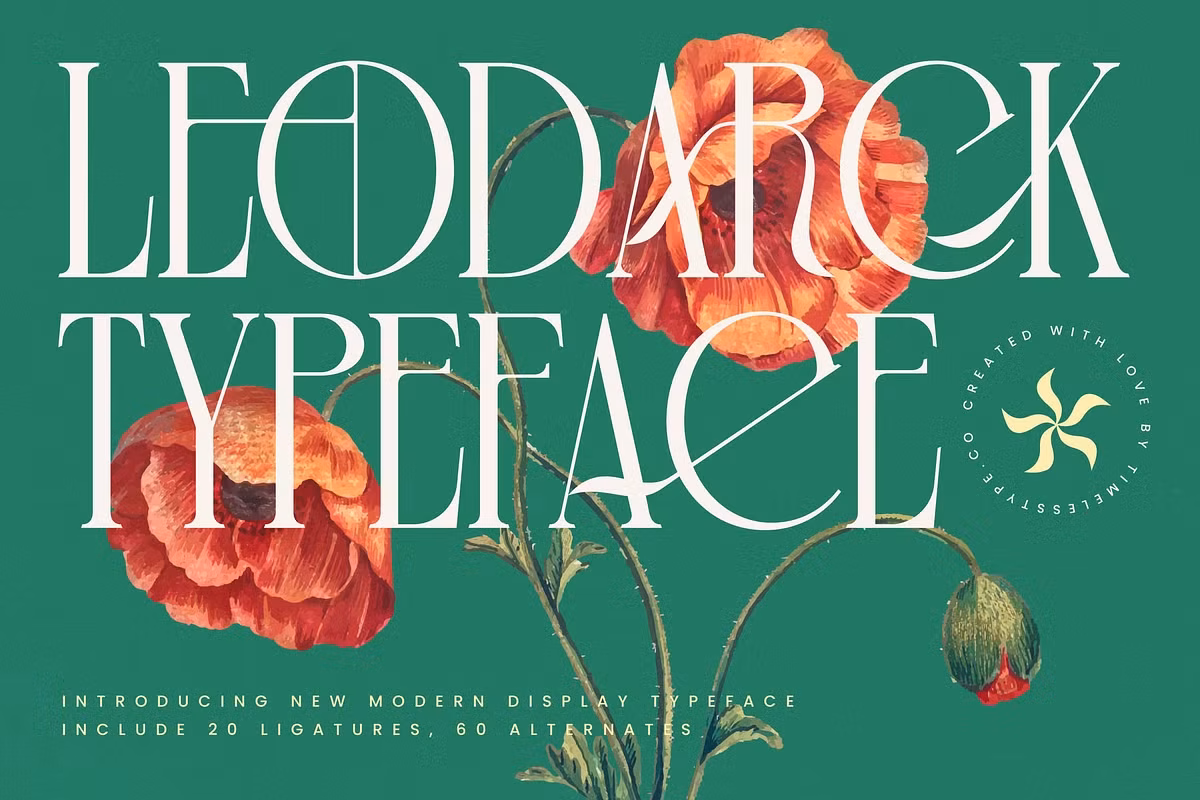
Leodarck New Modern Display Typeface Free Download is a stylish and contemporary font designed for impactful and bold designs. Featuring clean, geometric shapes and a modern aesthetic, this typeface is perfect for creating attention-grabbing headlines, logos, posters, branding, and any creative project that needs a sleek, professional look.
With its dynamic letterforms and sharp lines, Leodarck brings a fresh, modern feel to your typography, making it ideal for tech brands, product packaging, and any project requiring a strong visual presence. Its versatility makes it suitable for both print and digital designs.